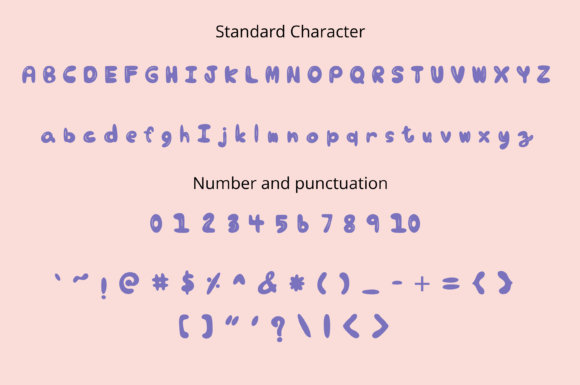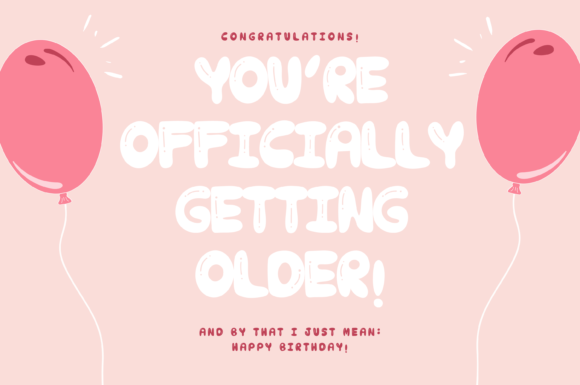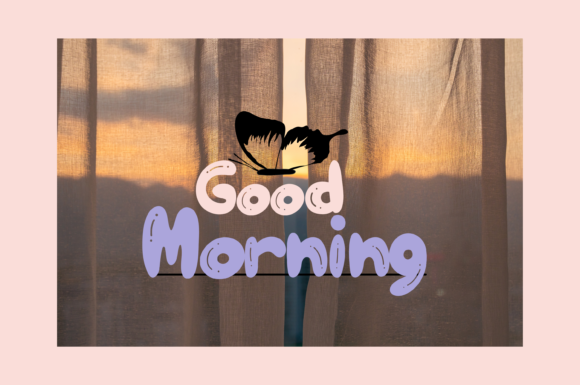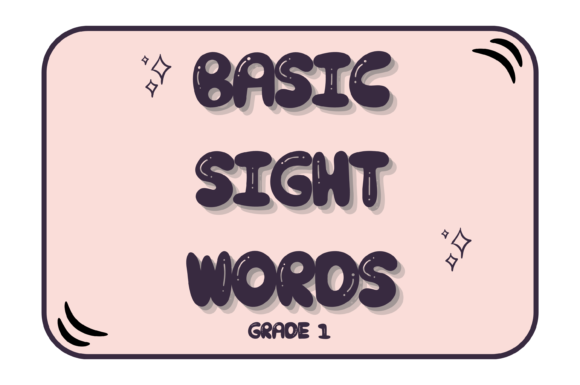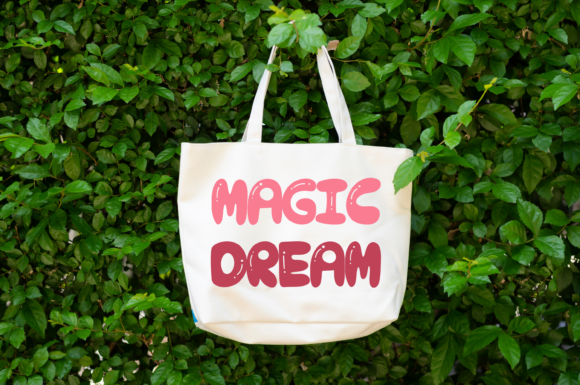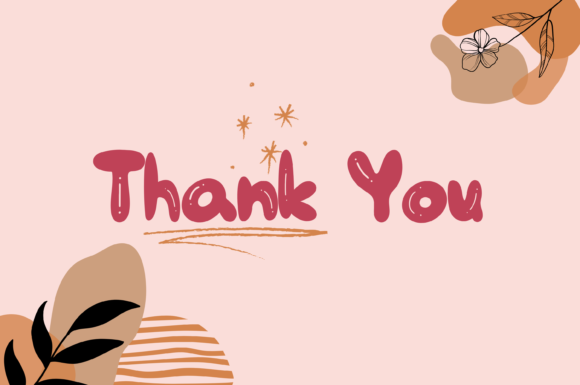
The Perfect Pop of Personality: Balloon Art Font
Remember the thrill of planning a child’s birthday party, and watching their face light up as you inflated a bright red balloon and began to twist it into a majestic animal? That same sense of wonder and excitement can now be captured in your designs with the whimsical Balloon Art Font.
As a display font, Balloon Art Font is designed to add a playful touch to any project. Its bubbly, hand-drawn style makes it the perfect choice for adding a pop of personality to your designs. Whether you’re creating a children’s book, a party invitation, or a social media graphic, this font is sure to bring a smile to your audience’s face.
For designers, Balloon Art Font is a valuable addition to their toolkit. Its versatility and ease of use make it a great choice for adding a creative twist to a wide range of projects. So why not give it a try and see how it can elevate your designs to the next level?
Balloon Art Font Key Features
- Font Style: A unique, hand-drawn balloon-inspired font with playful and whimsical characteristics.
- Unique Characteristics: Each letter and symbol is designed to resemble a balloon, creating a cohesive and recognizable visual theme.
Designer Review: Balloon Art Font
As a designer, I was excited to dive into the Balloon Art Font, hoping to find a unique and playful addition to my projects. Here’s my honest review:
- Uniqueness: The Balloon Art Font is indeed one-of-a-kind, offering a whimsical and childlike feel that’s perfect for projects aimed at kids or families.
- Legibility: Despite its playful nature, the font is surprisingly legible, making it suitable for a wide range of applications.
- Creativity: The font’s versatility allows for endless creative possibilities, from party invitations to children’s book illustrations.
- Limited range of weights and styles: The font’s design is mainly focused on a single weight and style, which might limit its use in more complex projects.
- Not suitable for formal or professional applications: The font’s playful nature might make it unsuitable for projects that require a more formal or professional tone.
- Some characters may not be available: Depending on the language or character set required, some characters might not be available in the font, which can be a limitation.
Overall, the Balloon Art Font is a fun and creative addition to any project. While it may not be suitable for all applications, its uniqueness and legibility make it a great choice for the right projects.
Use the Balloon Art Font to add a playful touch to your designs. Experiment with different font sizes and colors to create a unique look.
Combine the balloon font with other creative elements, such as illustrations or graphics, to create a visually appealing design.
Use the Balloon Art Font for:
- Children’s birthday cards and gift tags
- Food and beverage menus
- Advertising and promotional materials